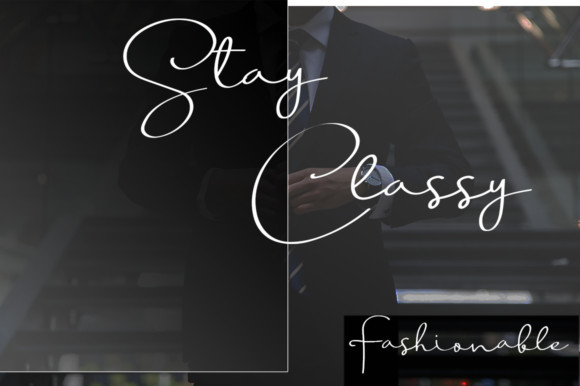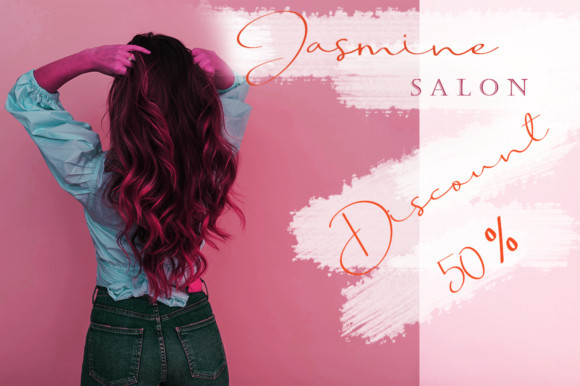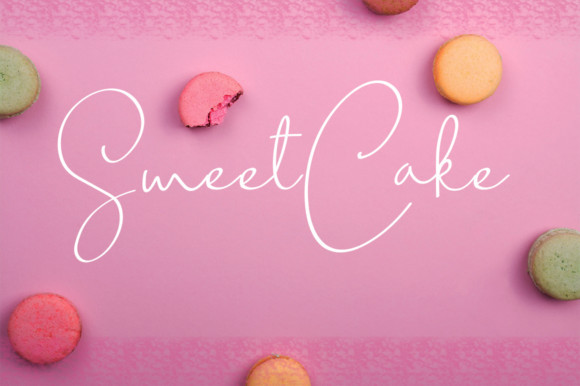
Beauty Dream Handwritten Font
Beauty Dream is a soft, sweet and charming handwritten font with an incredible personality. Fall in love with its light elegance!